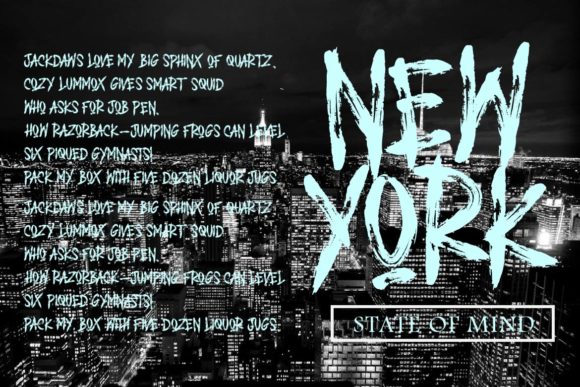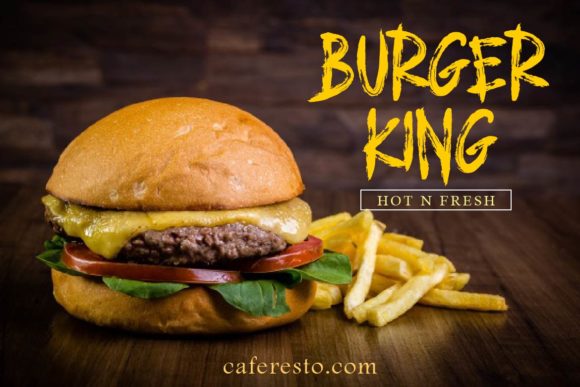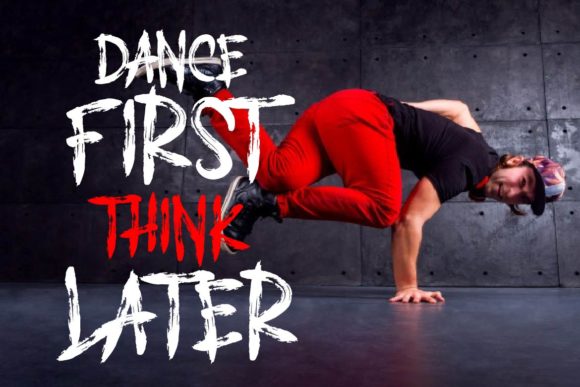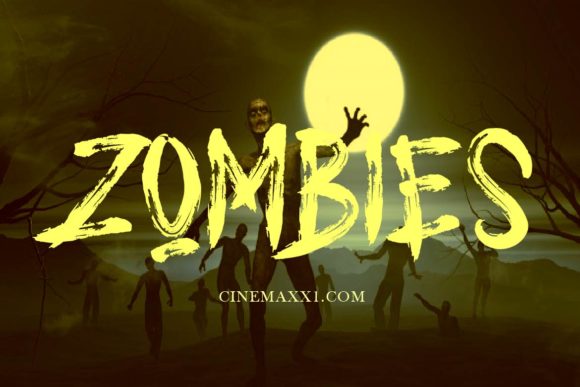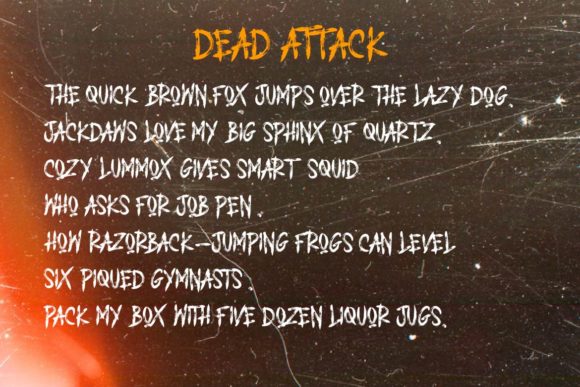
Unlocking Your Creative Potential with Dead Attack Font
Have you ever found yourself stuck in a creative rut, unable to bring your vision to life? It’s a familiar feeling for many designers, but what if you had the perfect tool to break through the barrier and unleash your inner creativity? Enter the Dead Attack Font, a unique and captivating display font that’s sure to elevate your design projects to new heights.
With its quirky charm and versatility, the Dead Attack Font is a valuable addition to any designer’s arsenal. Whether you’re working on a high-profile campaign or a personal creative project, this font is a game-changer. And the best part? It’s available for free download, complete with a transparent background, making it easy to integrate into your design resource library.
Exploring the Possibilities of Dead Attack Font
As a high-quality design resource, the Dead Attack Font offers endless possibilities for creative expression. From bold headlines to intricate typography, this font is sure to inspire your next project. So why settle for ordinary when you can have extraordinary? Discover the power of the Dead Attack Font and take your designs to the next level.
Key Features of Dead Attack Font
- High-quality font design, perfect for creative projects and designs requiring a unique, edgy feel.
- Designed to be highly legible, even at high resolutions, making it suitable for use in a variety of applications.
- Perfect for designers working on creative projects, such as posters, flyers, and other marketing materials.
Honest Review: Dead Attack Font
I recently stumbled upon the Dead Attack Font, and I must say it’s a great addition to my design resource library. This font is perfect for those who want to add a touch of edginess to their creative project.
What works well: ✨ The Dead Attack Font is free to download, which is a huge plus for designers on a budget. The font itself has a unique and bold design that’s sure to grab attention. The transparent background option makes it easy to use in various design scenarios.
- Unique and bold design that’s sure to grab attention
⚠️ However, one limitation is that the font may not be suitable for all types of designs. Its bold and edgy design may be too much for more conservative projects. Additionally, the font may not be as versatile as some other design resources.
Overall, I’m impressed with the Dead Attack Font. It’s a great option for designers who want to add some flair to their creative project. Just be sure to use it judiciously, and it will be a valuable addition to your design library.
The Dead Attack Font is a versatile design resource that can be used in a variety of applications. Some common use cases include:
– Flyers and posters
– Custom graphics and designs
– Presentations and documents
Q: Is the Dead Attack Font a high-quality design resource?
Yes, the Dead Attack Font is a high-quality design resource that is carefully crafted to provide a unique and stylish look for your creative project. With its clean and modern design, it’s perfect for use in a variety of design contexts, from logos and branding to digital products and marketing materials.